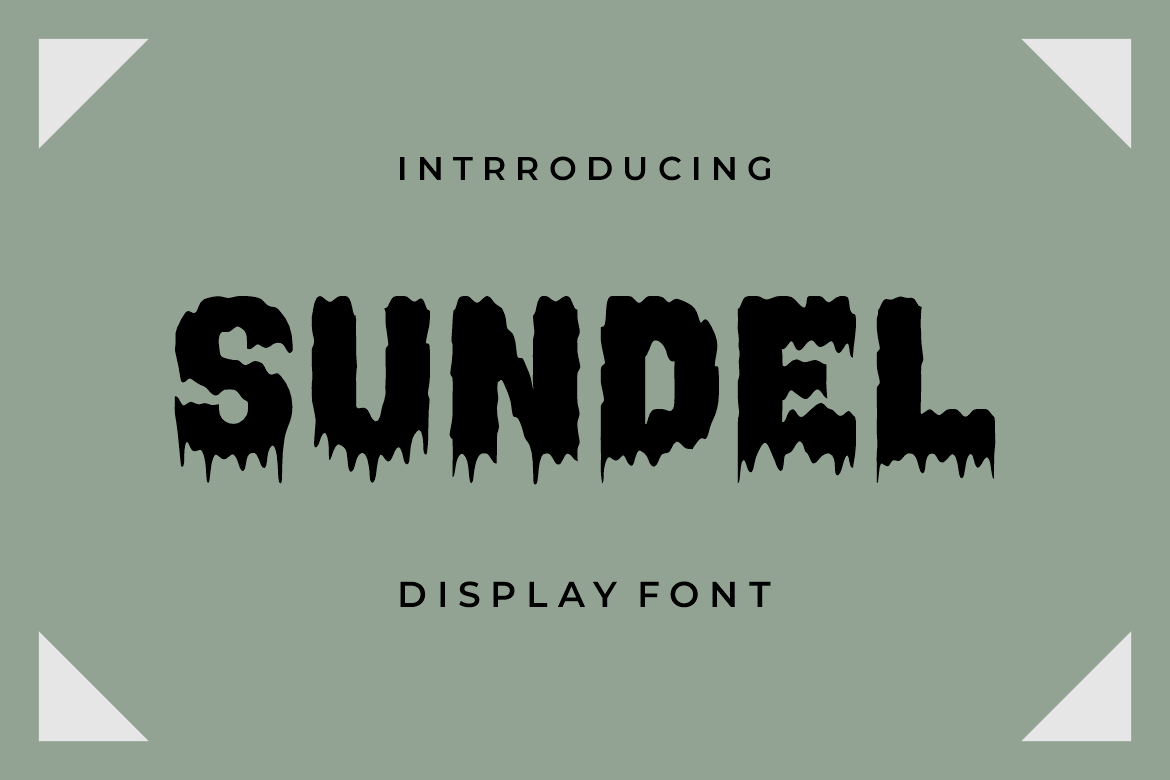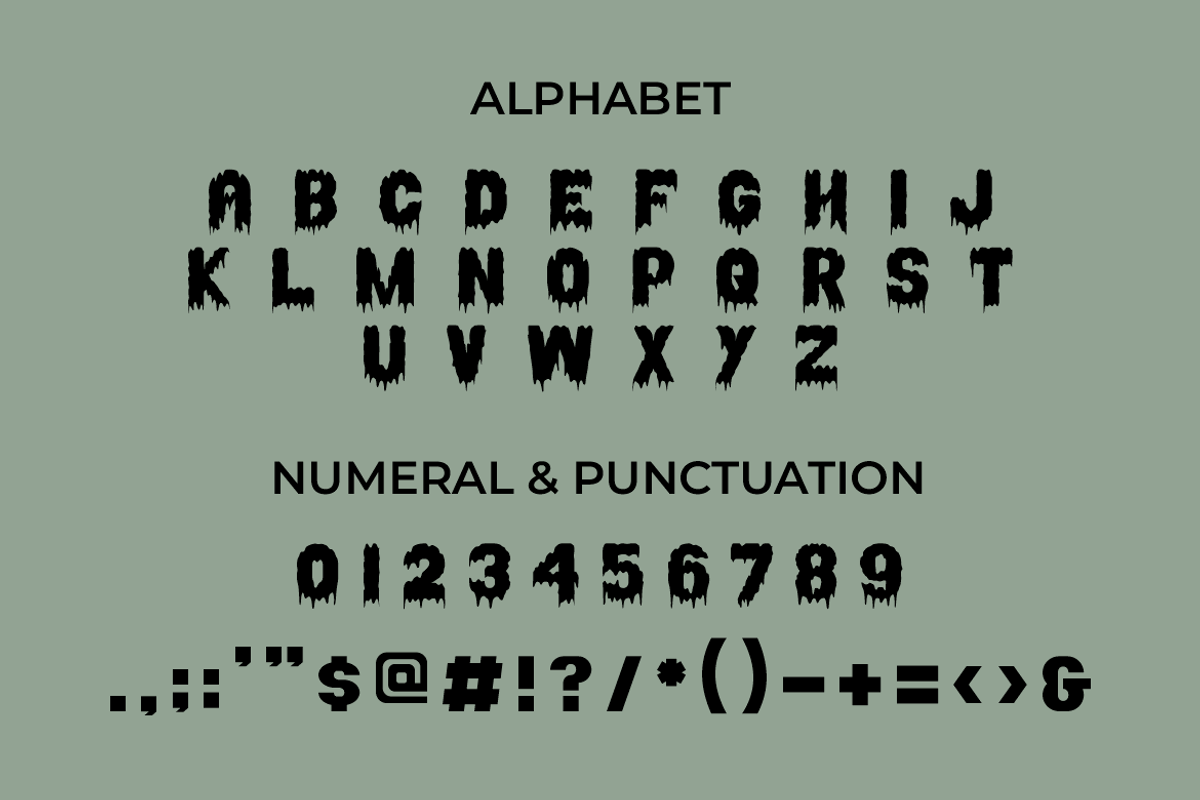
SUNDEL FONT
Introducing our new product SUNDEL FONT - Modern Font
SUNDEL FONT - Modern Font is a bold and authentic display font. The font is suitable for any branding project like logo, t-shirt printing, esport, and many more. outstanding in a wide range of contexts.